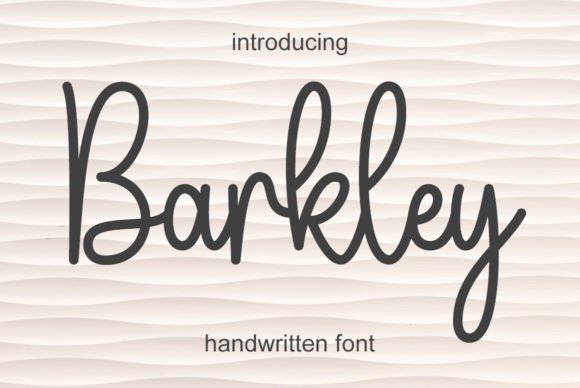
Discover the Barkley Font, a breathtaking handwritten script that oozes charm and personality with every character. Its playful and slightly quirky nature is sure to add a touch of whimsy and delight to any creative endeavor.
With Barkley, you'll find endless opportunities to bring life to your designs. Its free-flowing strokes and elegant curves evoke a sense of playfulness and creativity, making it the perfect choice for logos, wedding invitations, quotes, advertisements, print, magazines, and more.
Step into a world of boundless creativity, where your imagination takes center stage. Bask in the beauty of Barkley's carefully crafted characters, each designed to capture the essence of handwritten artistry. Its effortless charm will captivate your audience, leaving a lasting impression that lingers long after they've encountered your designs.
Whether you're a seasoned designer or just starting your creative journey, Barkley is the perfect companion to elevate your projects to new heights. Its user-friendly nature makes it accessible to designers of all skill levels, ensuring that you can easily harness its enchanting appeal.
With Barkley at your fingertips, you'll unlock a world of possibilities. Transform ordinary designs into captivating masterpieces, leaving your audience spellbound by your creative genius. Embrace the boundless potential of Barkley, and watch as your projects blossom into works of art that captivate and inspire.